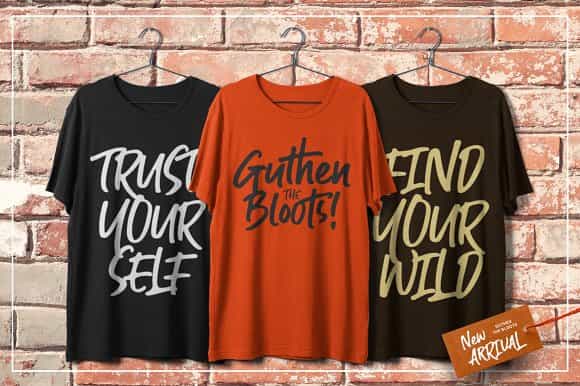
Say hello to Guthen Bloots Font. Guthen Bloots! A Smooth Marker Font and two stylish alternates. This font is made with perfect combining of each characters and it looks very original and can be used for all your project needs. You can type by mix and match to get a unique combining. Each glyph has its own uniqueness and when meeting with others will provide a dynamic and pleasing proximity.